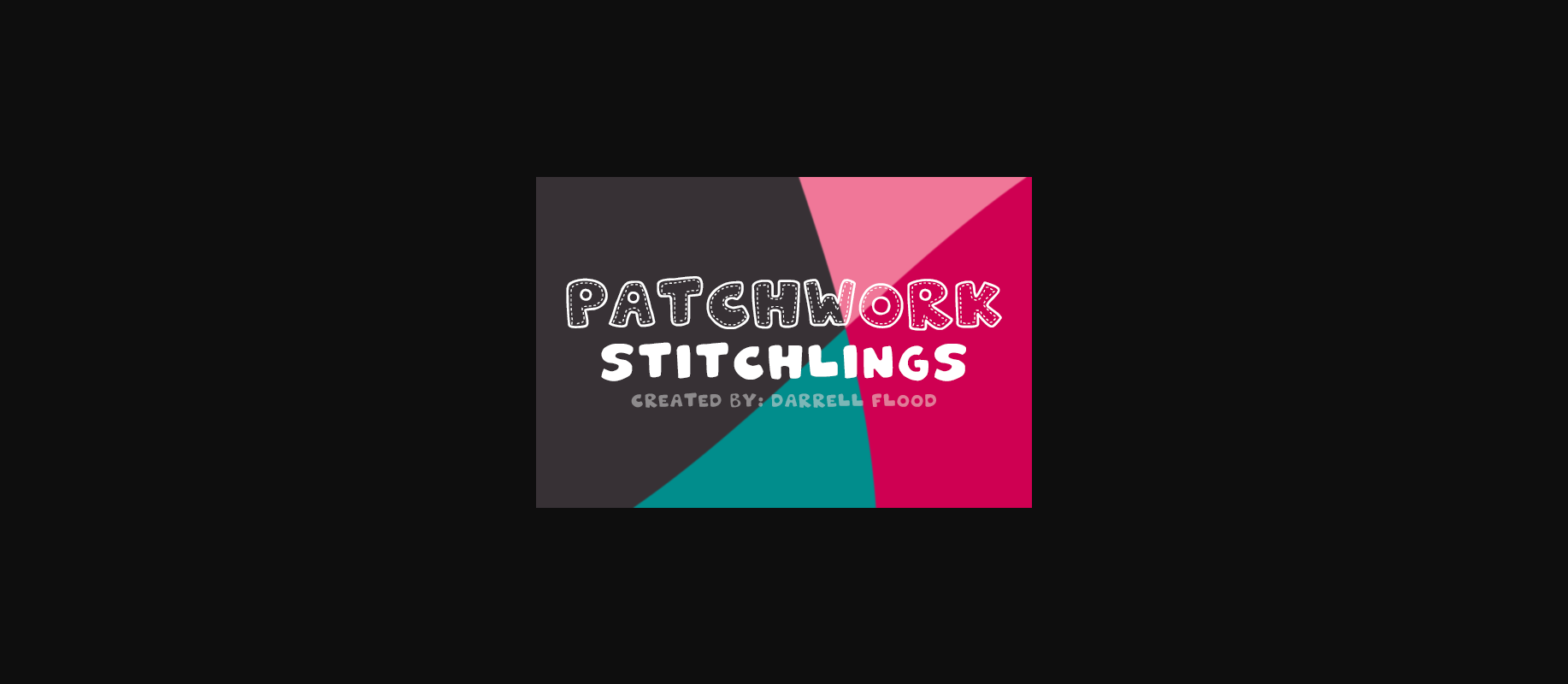
Patchwork Stitchlings Font
About Patchwork Stitchlings Font
Patchworks Stichlings is a stunning decorative font. Each glyphs has a stitched line which gives it a very playful feeling. This font is great for creating memorable branding, cards & much more.
The font also comes with a filled version.